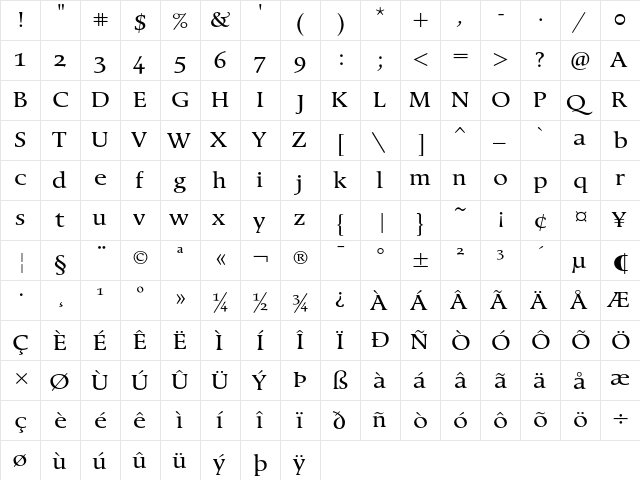
Berndal LT Std Regular Regular
| Foundry | Linotype Library GmbH |
| Designer | Bo Berndal |
Design Context for Berndal LT Std Regular Typeface
Berndal LT Std Regular takes a measured approach to typography — its balanced proportions and neutral character make it a reliable workhorse for both digital and print work. Its slender proportions lend an understated elegance to any composition.